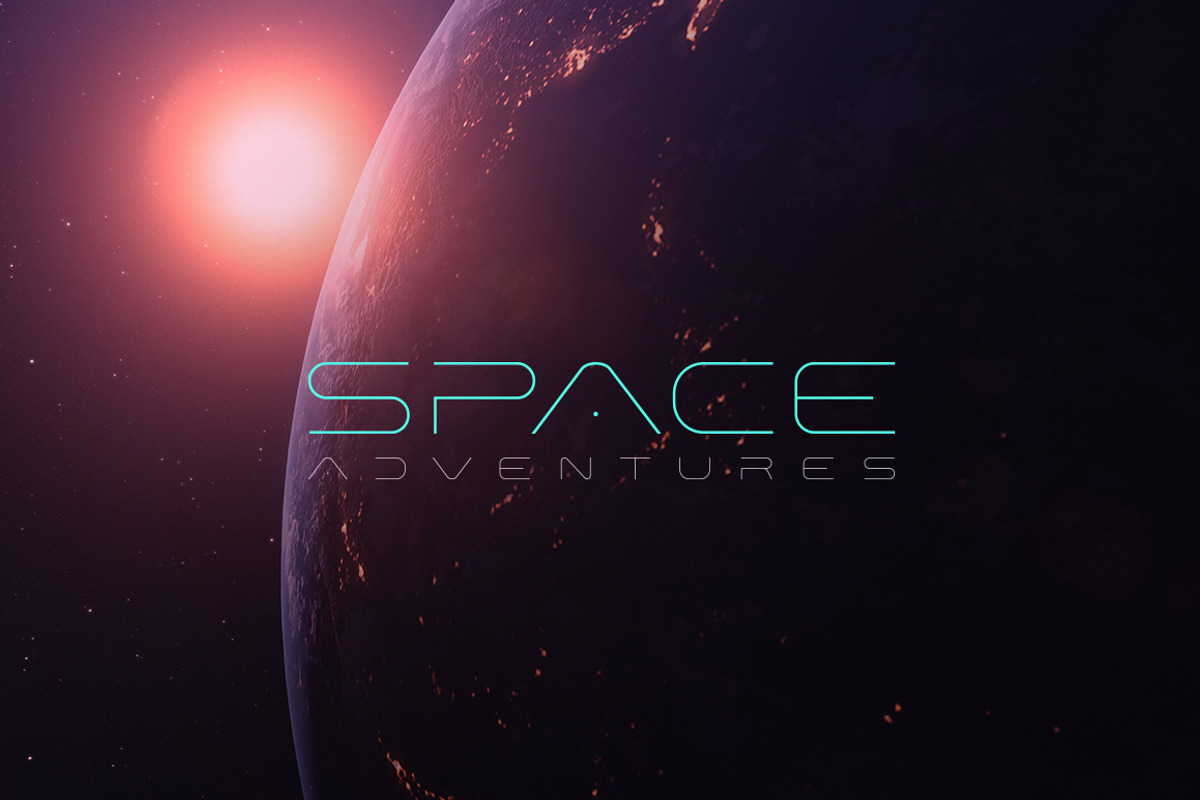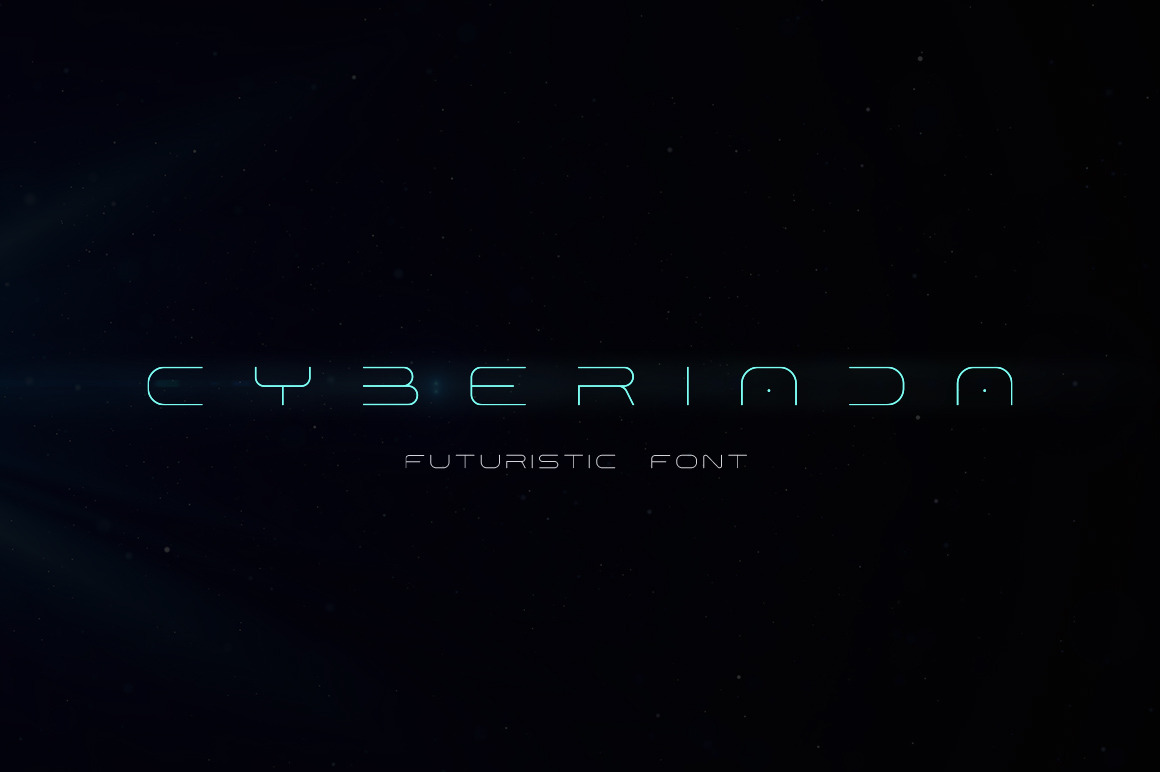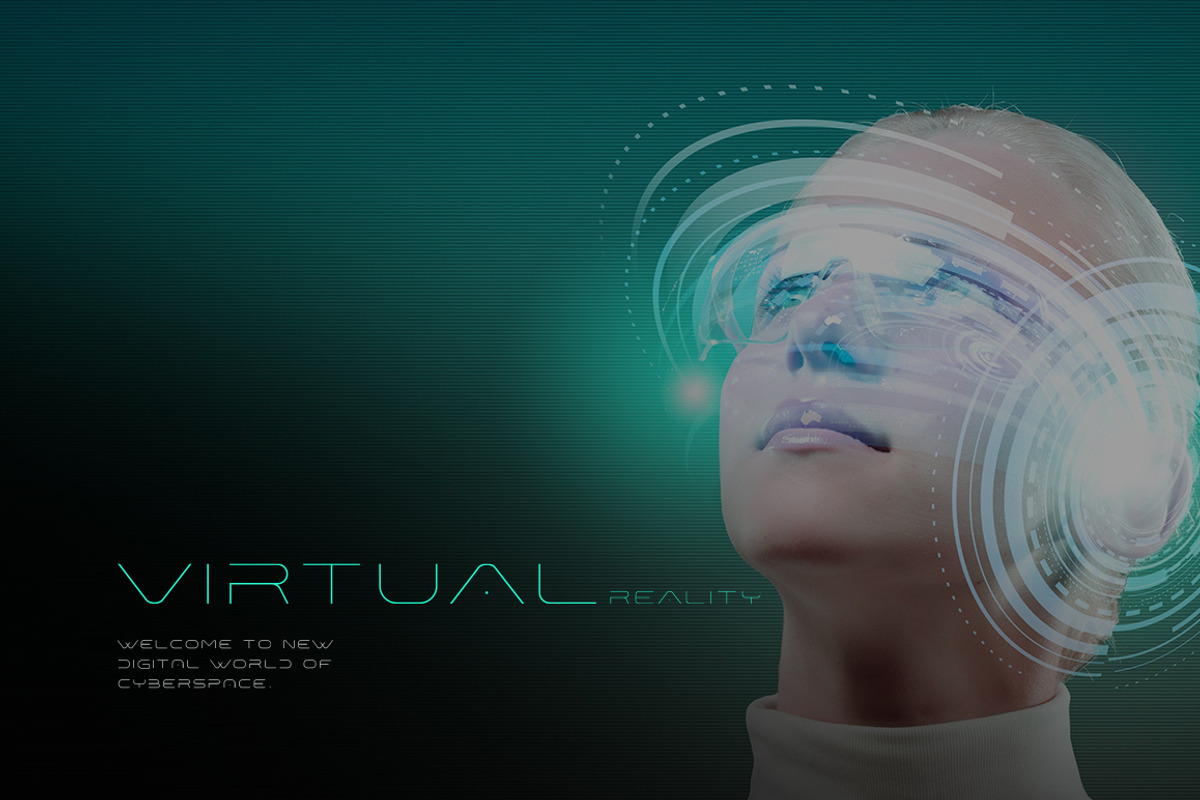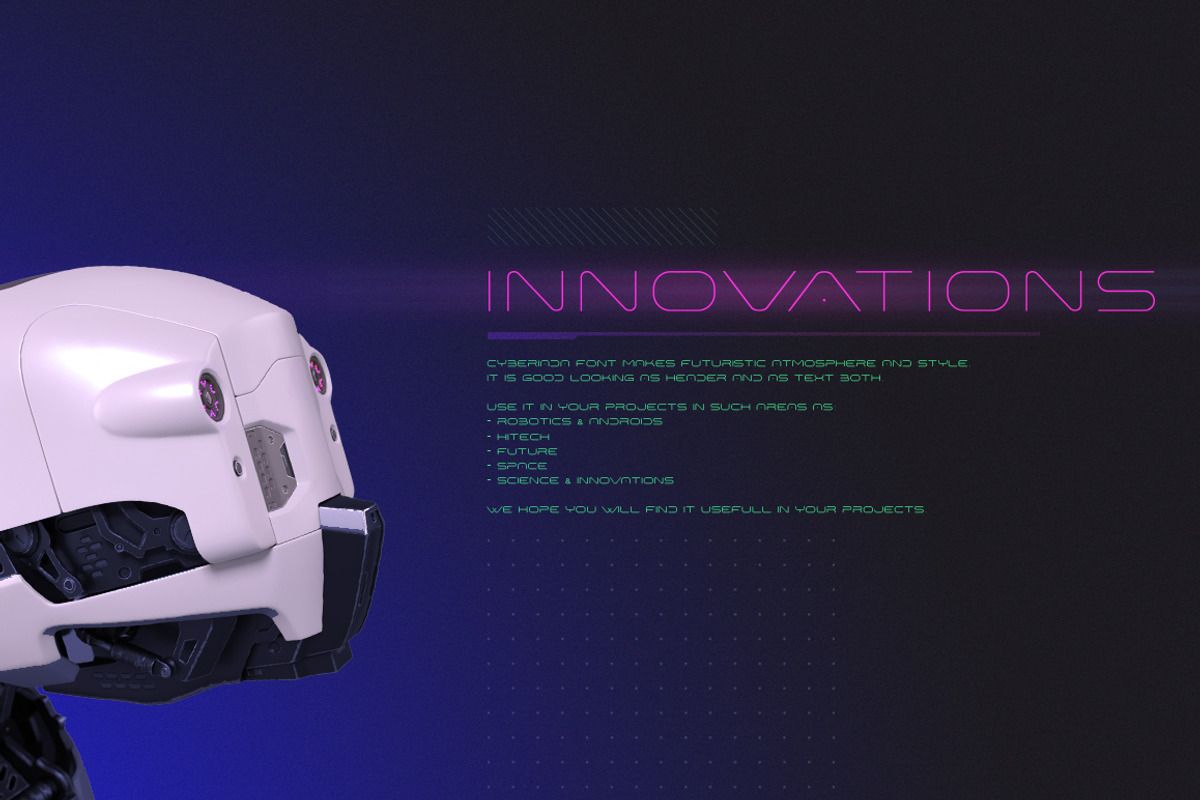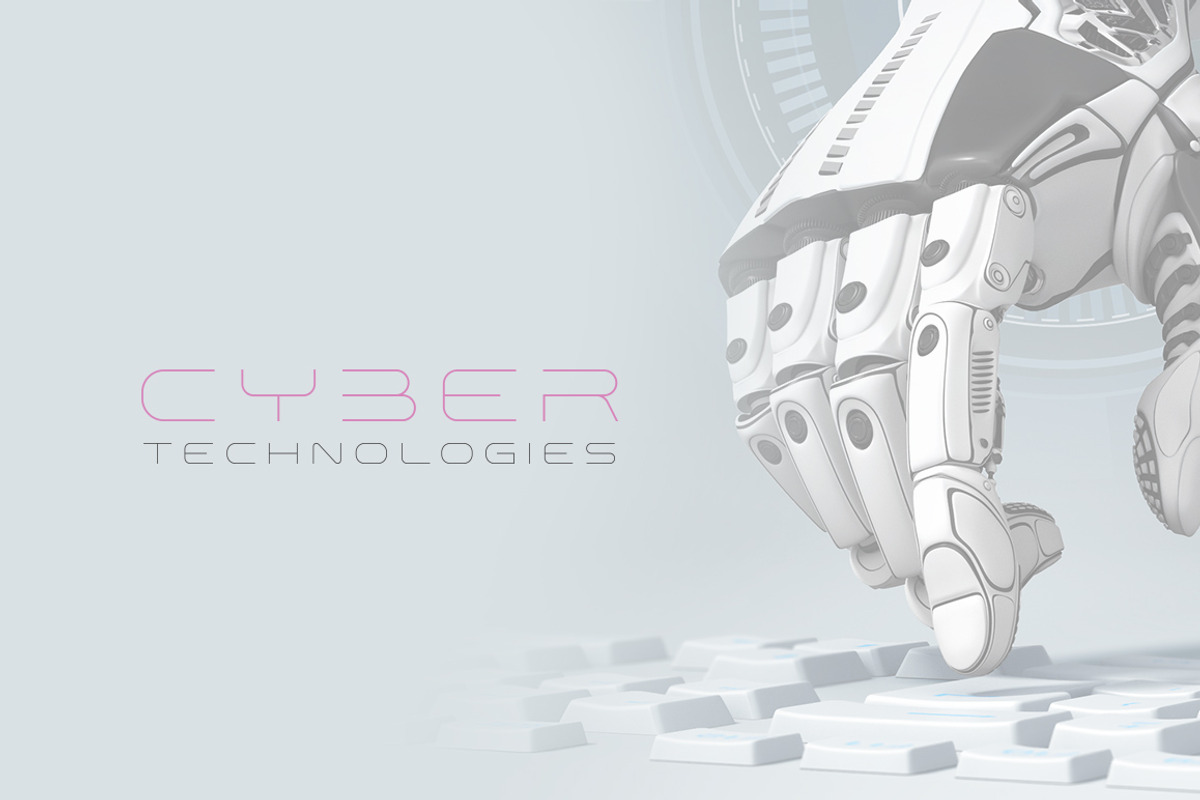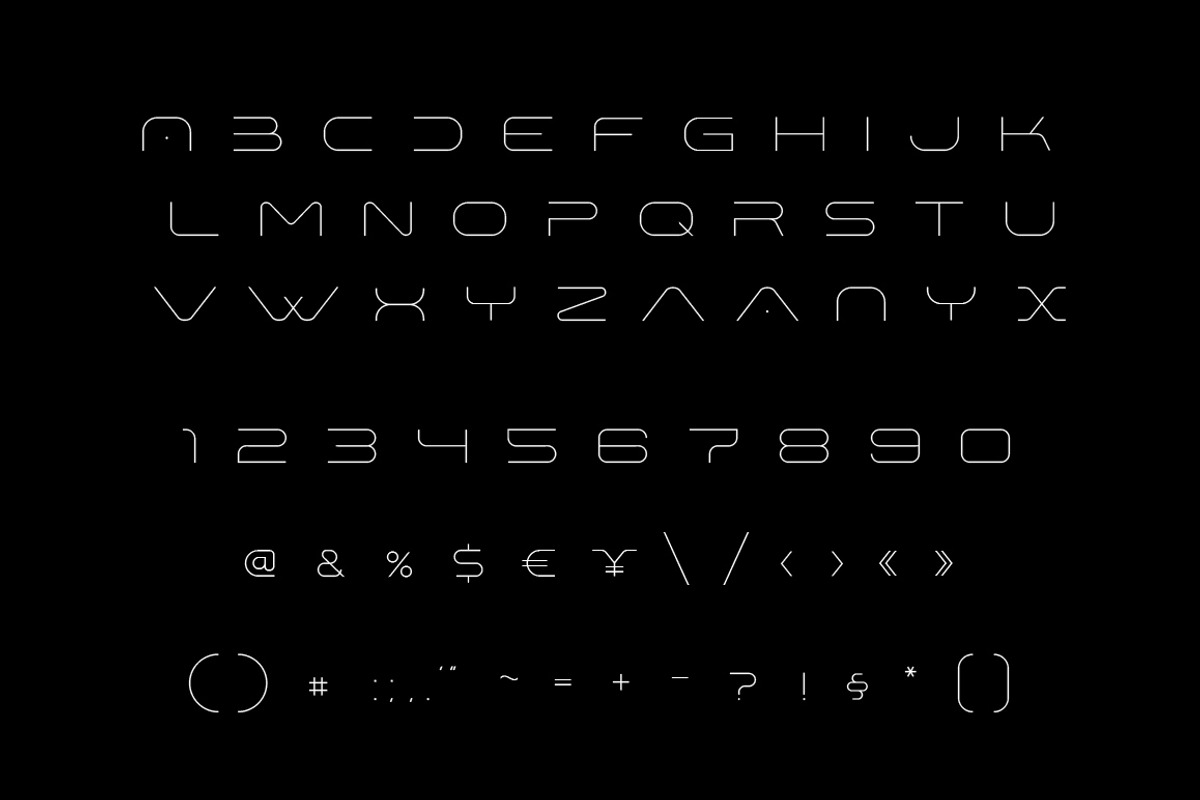
Cyberiada Font
Cyberiada font creates futuristic hi-tech atmosphere and style. It is good looking as header and as text both. Use it in your projects in such areas as robots&androids, hi-tech, future, virtual reality, space, sport and many others.